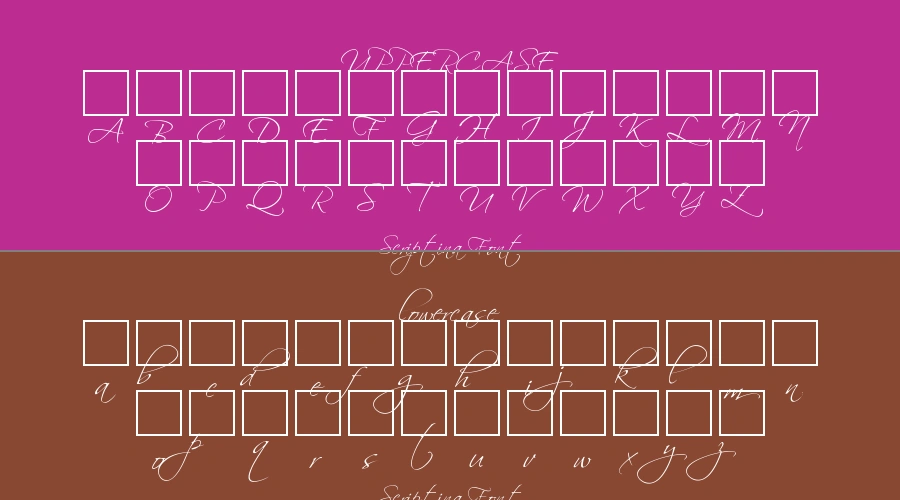
About Scriptina Font
Scriptina Font embodies typographic excellence through its masterful combination of engineered curves and originality. Created for government publications, this typeface delivers exceptional endurance and technical sophistication across all applications. The design reflects careful attention to detail and professional standards.
Advanced capabilities include distinctive playful elements and versatile brand signatures, giving designers creative control. When used in compliance seals, Scriptina Font exhibits remarkable small text clarity. The harmonious balance between stroke modulation and generational relevance sets this typeface apart.